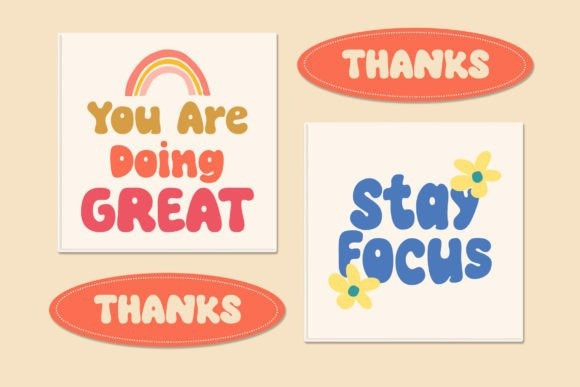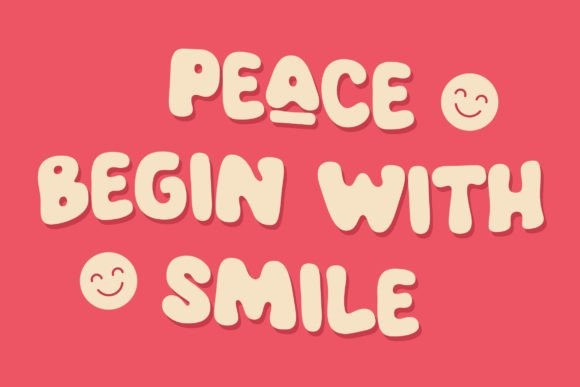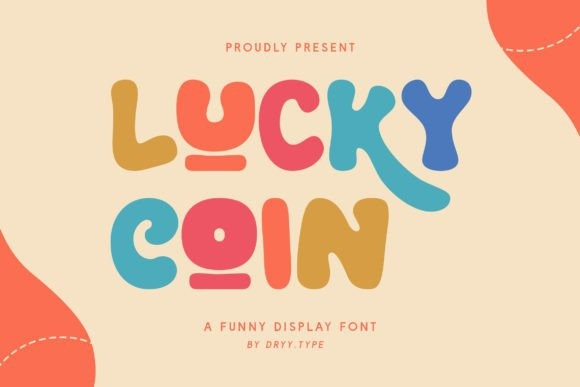
Lucky Coin Font
Lucky Coin Display Font is a groovy and vintage display font that takes you back in time to the 70s. This font features bold and striking letterforms with a retro feel that adds a touch of nostalgia to any design project. Perfect for creating eye-catching posters, album covers, or branding with a fun and funky twist. Let the good times roll with this groovy font.